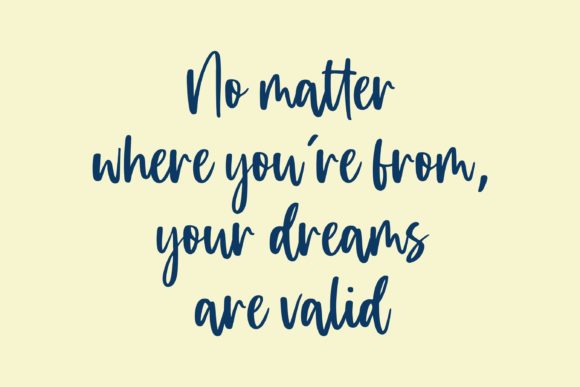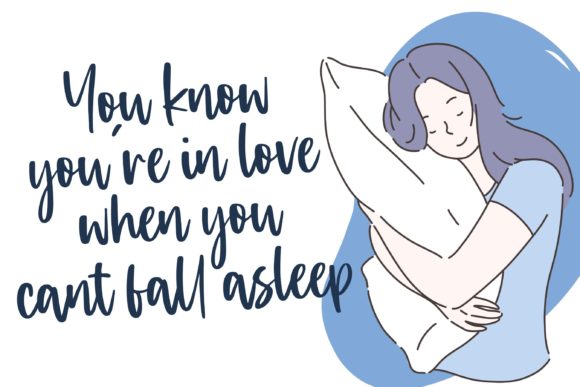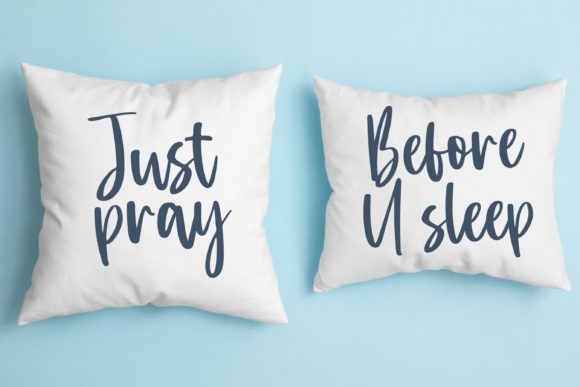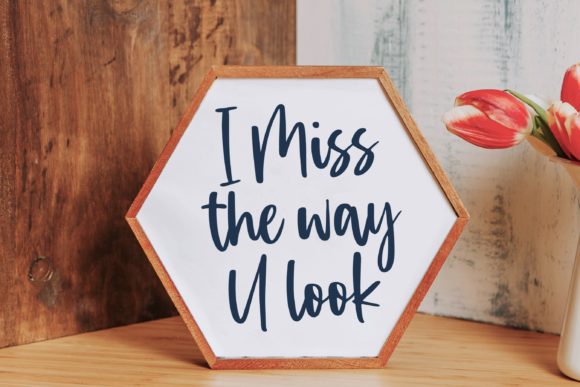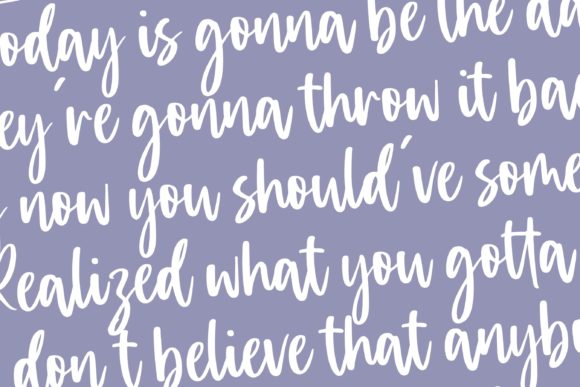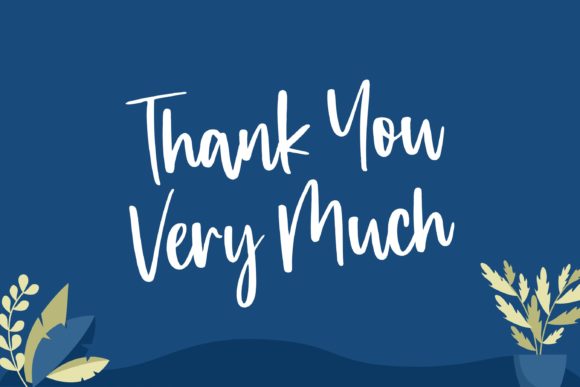
Dreamfoster Font: The Ultimate Handwritten Font for Designers and Crafters
Are you tired of using the same old fonts in your designs? Look no further than the Dreamfoster font, a cute and sweet handwritten font that’s sure to add a touch of personality to your projects. With its casual charm and down-to-earth feel, Dreamfoster is the perfect choice for designers and crafters looking to create something truly special.
The Characteristics of Dreamfoster Font
Dreamfoster is a handwritten font that’s all about charm and character. Its casual, laid-back vibe makes it appear wonderfully down-to-earth and readable, even in large blocks of text. But what really sets Dreamfoster apart is its versatility – it can be used in a wide range of contexts, from busy backgrounds to standalone headlines.
One of the key features of Dreamfoster is its unique, hand-crafted look. Each letter has been carefully designed to have its own personality, with subtle imperfections and quirks that give the font a human touch. This makes it perfect for designs where you want to create a personal connection with your audience.
Why Designers and Crafters Love Dreamfoster
So why do designers and crafters love Dreamfoster so much? For one, it’s incredibly easy to read, even at small sizes. This makes it perfect for use in body text, captions, and other applications where readability is key. But it’s not just about function – Dreamfoster is also a font that’s all about aesthetics.
With its sweet, cursive lines and playful charm, Dreamfoster is the perfect choice for designers who want to add a touch of whimsy to their designs. Whether you’re creating a logo, a poster, or a social media graphic, Dreamfoster is sure to make your design stand out.
How to Use Dreamfoster in Your Designs
So how can you use Dreamfoster in your designs? The possibilities are endless! Here are a few ideas to get you started:
- Use Dreamfoster as a headline font to add a touch of personality to your designs.
- Pair Dreamfoster with a bold, sans-serif font for a striking contrast.
- Use Dreamfoster in body text to create a friendly, approachable feel.
- Add Dreamfoster to your social media graphics to make them stand out.
The Benefits of Using Dreamfoster
So what are the benefits of using Dreamfoster in your designs? Here are just a few:
- Unique look: Dreamfoster has a unique, hand-crafted look that’s sure to make your designs stand out.
- Readability: Dreamfoster is incredibly easy to read, even at small sizes.
- Versatility: Dreamfoster can be used in a wide range of contexts, from busy backgrounds to standalone headlines.
In conclusion, Dreamfoster is a font that’s sure to delight designers and crafters alike. With its cute and sweet handwritten look, casual charm, and versatility, it’s the perfect choice for anyone looking to add a touch of personality to their designs.
Whether you’re creating a logo, a poster, or a social media graphic, Dreamfoster is sure to make your design stand out. So why not give it a try today and see the difference it can make in your designs?